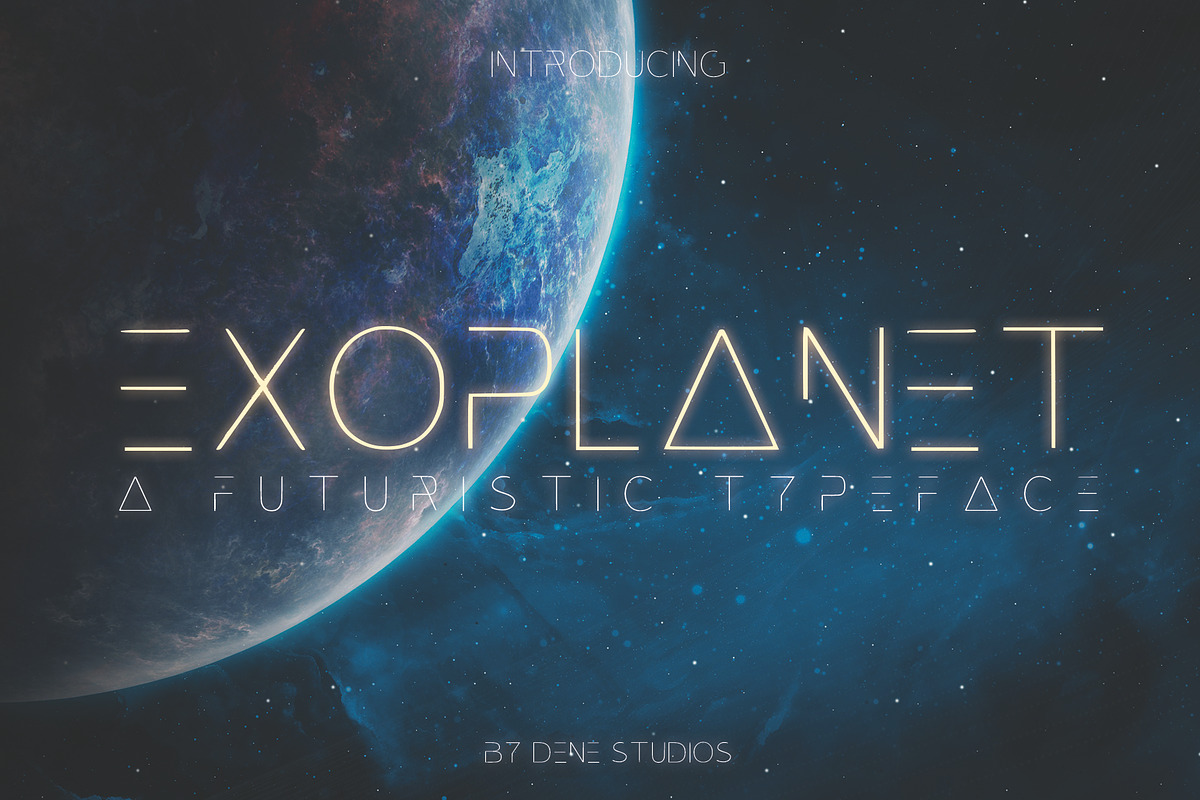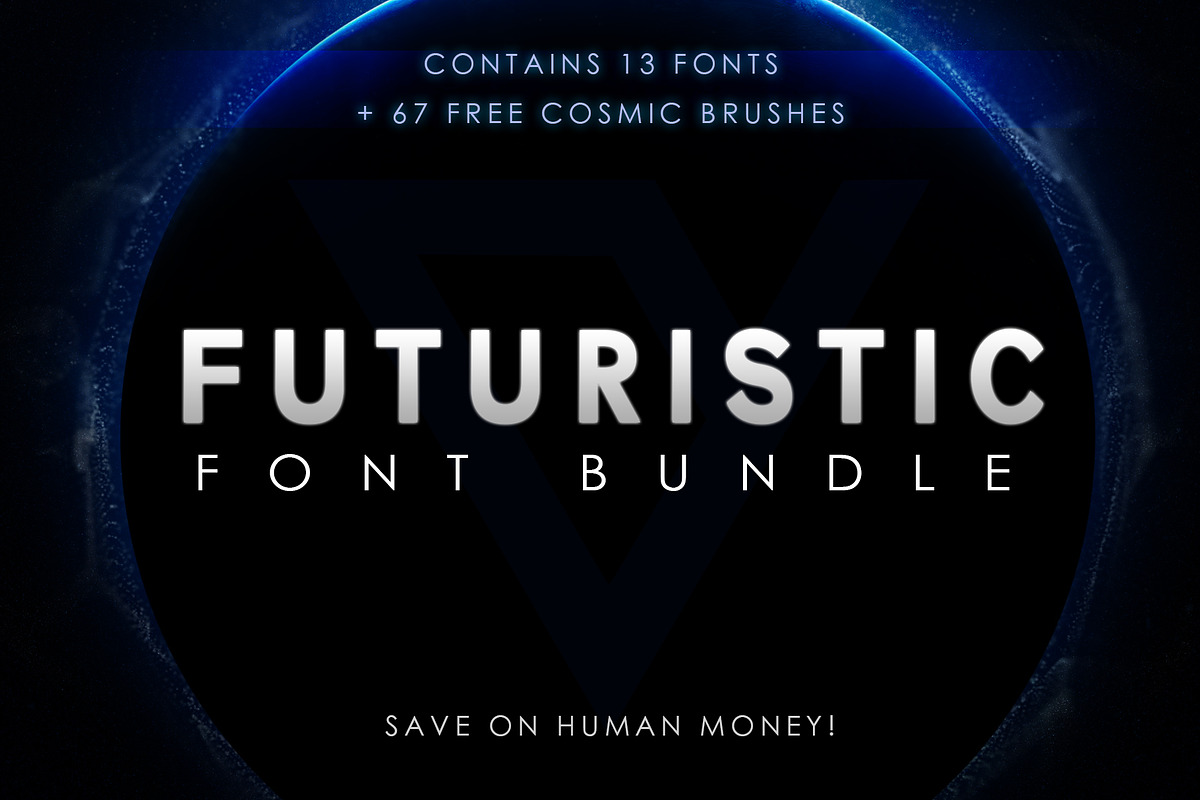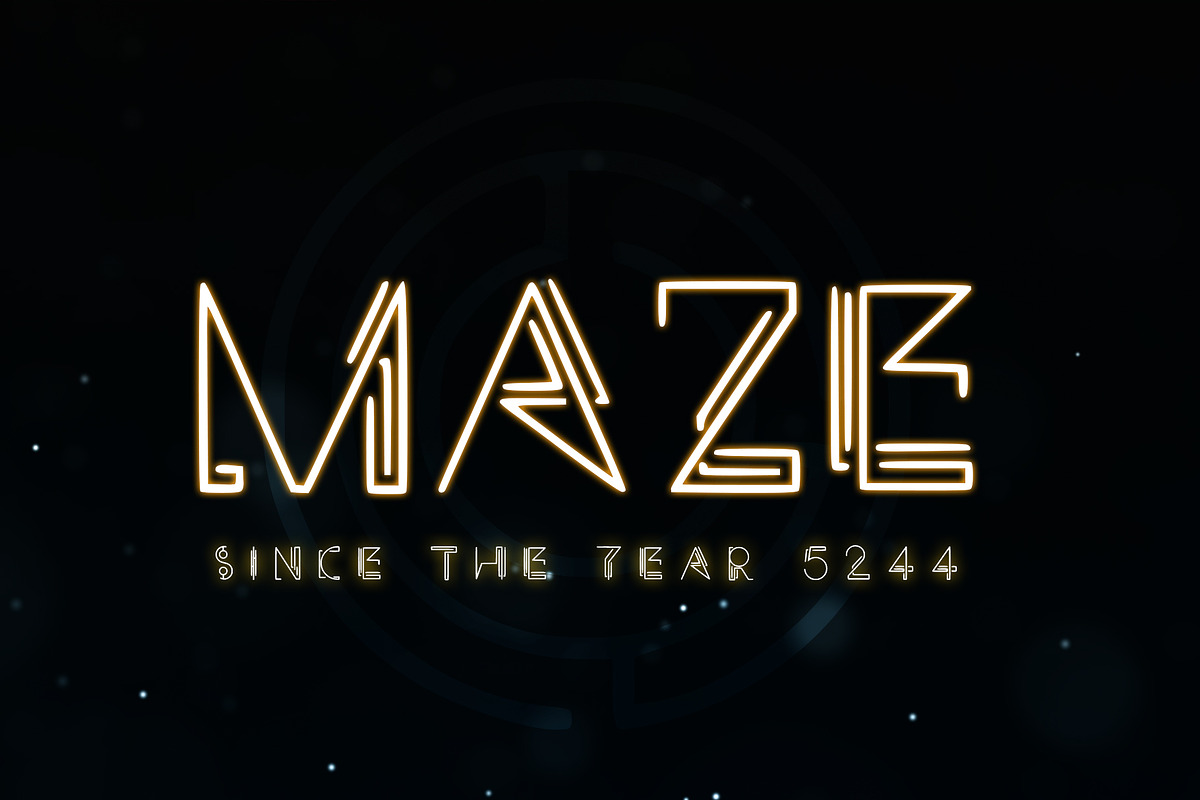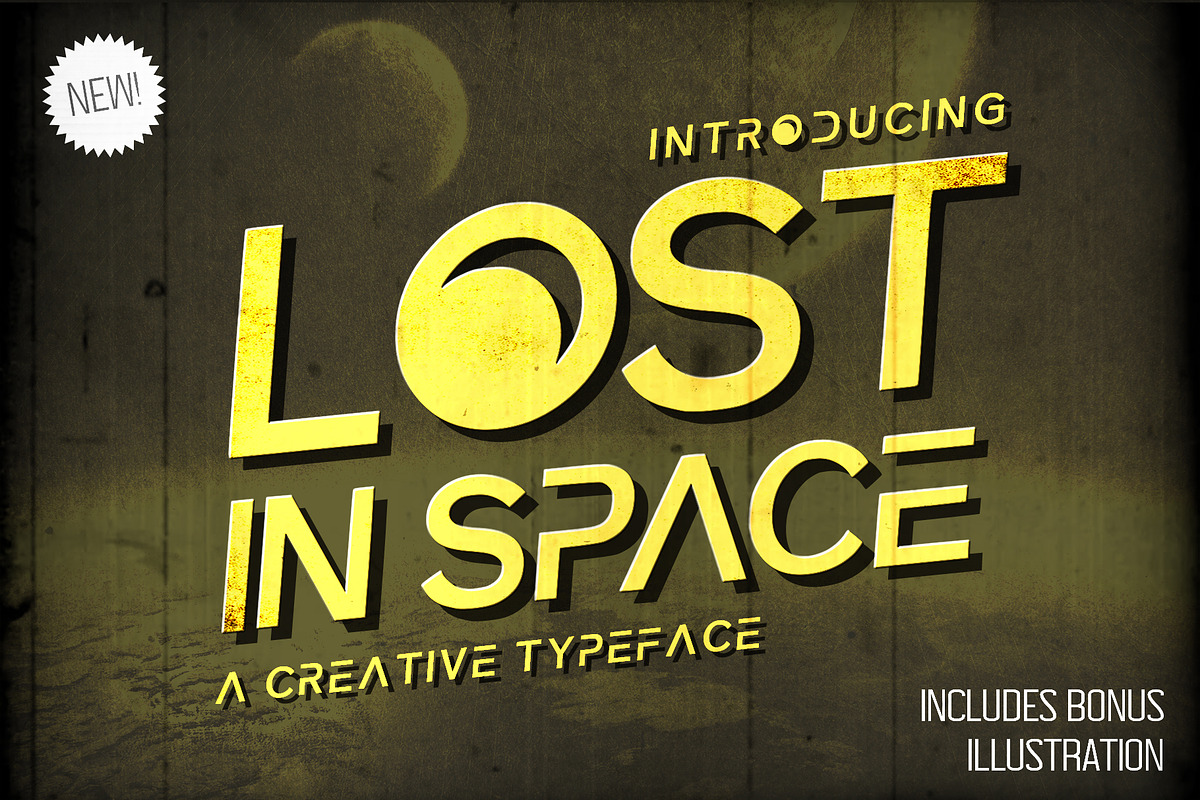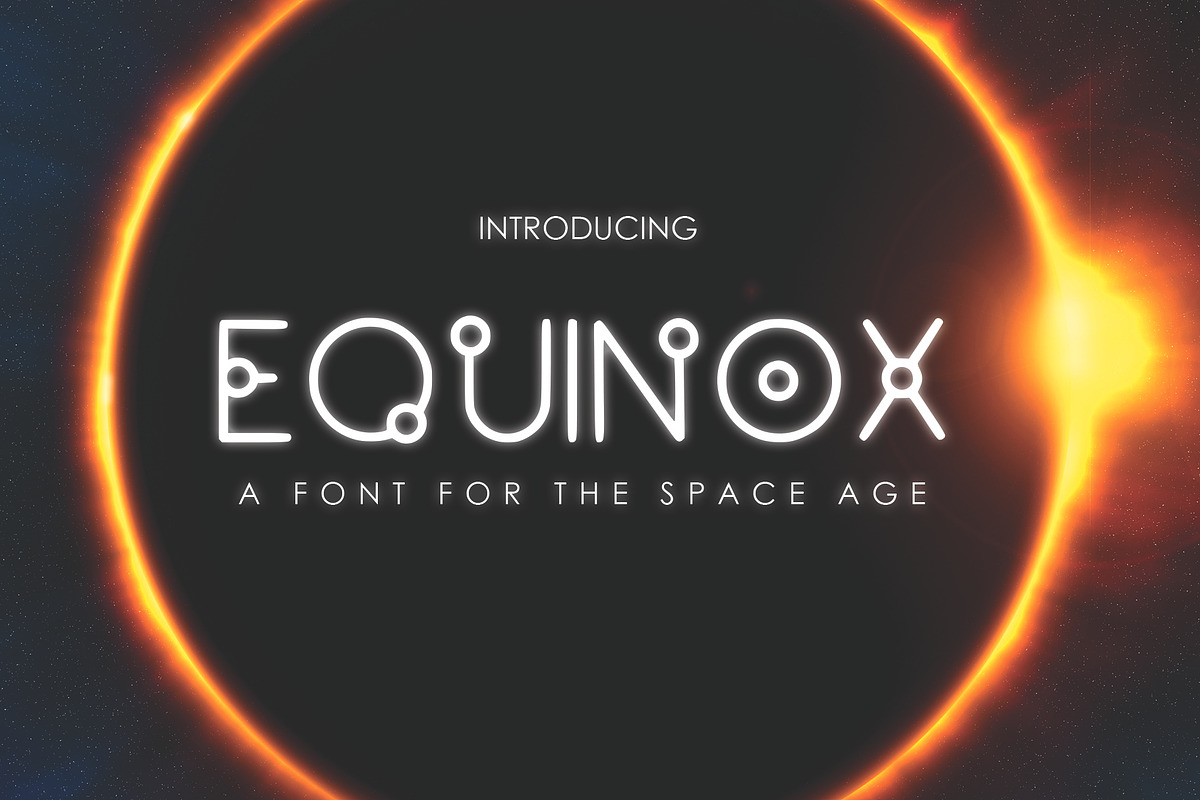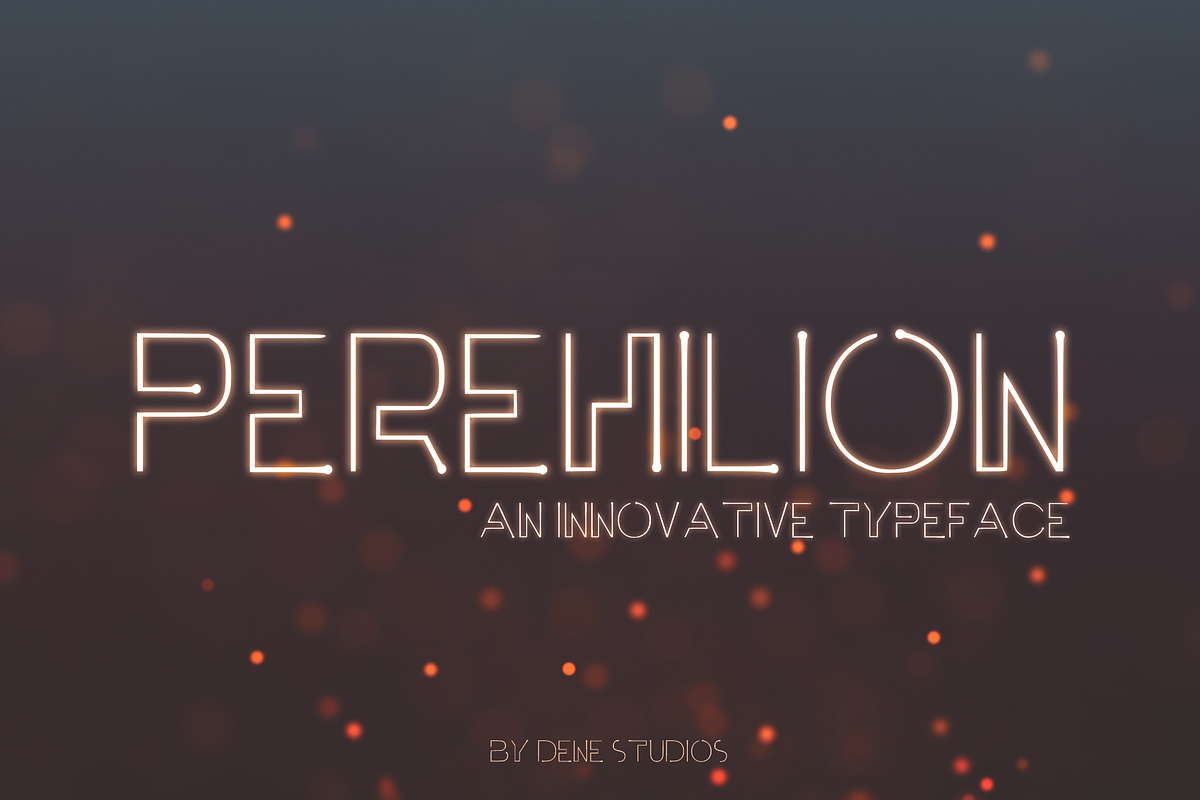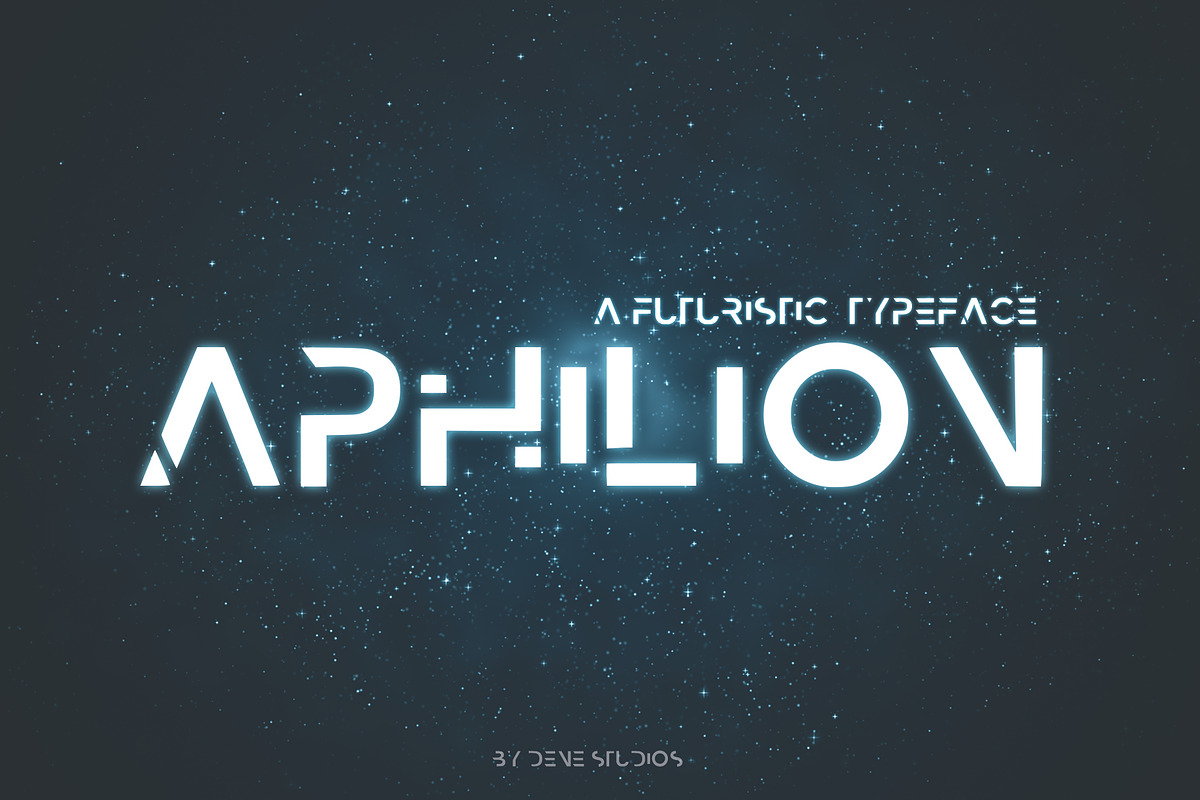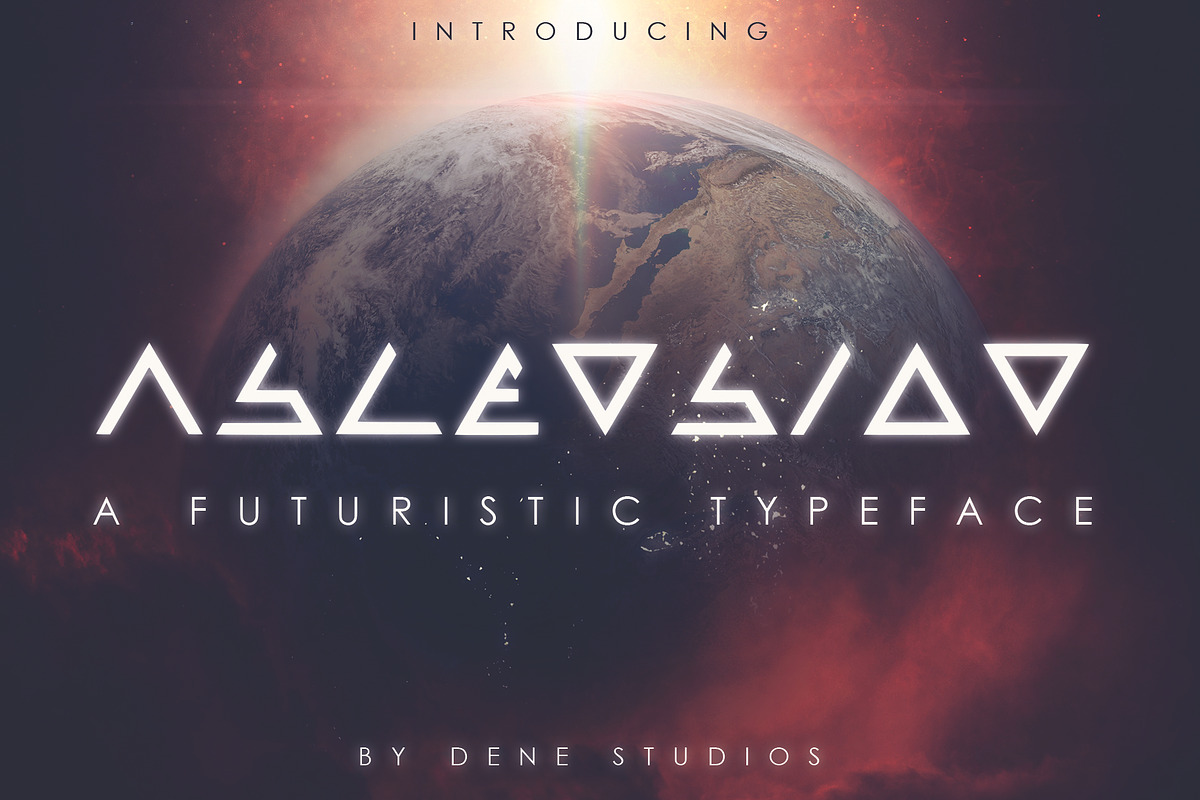
Futuristic Font Bundle
A large bundle of futuristic display fonts for sale plus bonus brushes. This unique and creative set of designs has been passionately handcrafted to give you a unique set of typefaces. Inspired by sci-fi, these fonts are perfect for your next project, especially if you want to give a futuristic feel. This bundle will be constantly updated with new fonts.